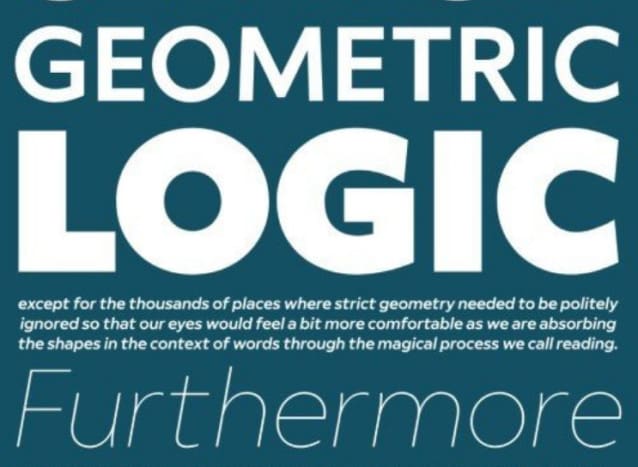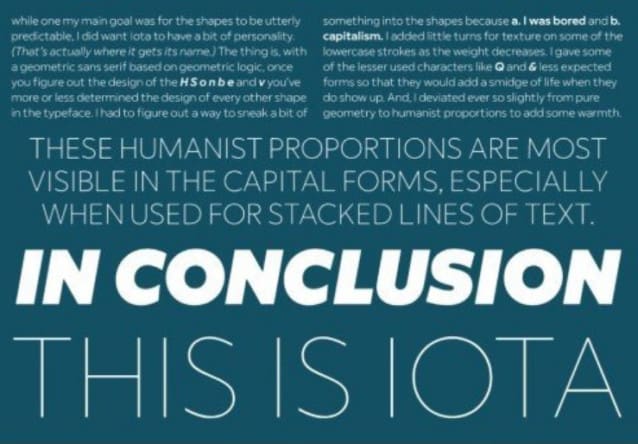
Iota Font Family
Iota Font Family is a geometric sans. There are already a lot of geometric sans in the world. A lot. Yet, type designers continue to make new ones. Why? I have no idea, but my guess is type designers continue to make them because graphic designers continue to use them because type designers continue to make them… This cycle has gone on for almost 100 years and it’s not slowing down. I’ve watched this cycle closely for over 20 years and vowed to never join it by making a geometric sans for my own little type foundry. I mean, I don’t have anything against geometric sans, type designers making new ones or graphic designers using them. I just have a natural inclination to avoid crowds. I mean, I’ve even drawn a few geometric sans for clients and it was a perfectly pleasant experience. But, it just wasn’t something I wanted to do for my foundry. So, why did I make I make a typeface that is Very Much A Geometric Sans And Nothing Else™? Well. I made it because I didn’t want to make it.